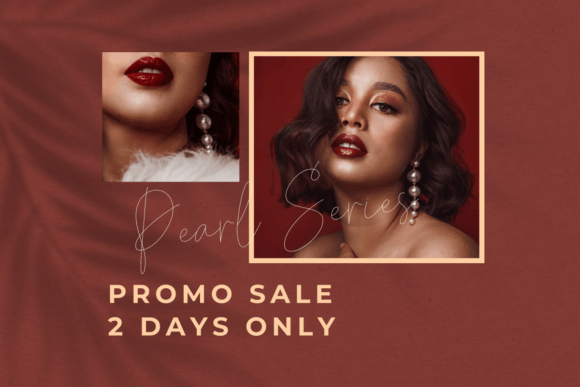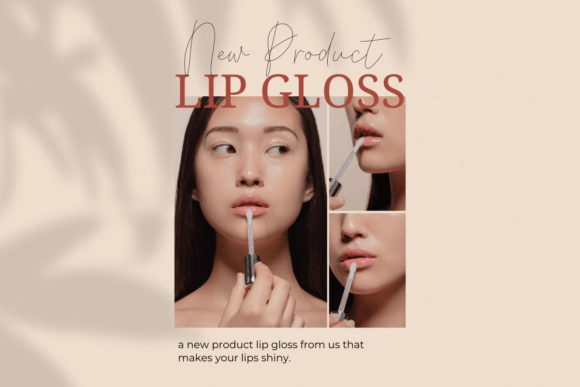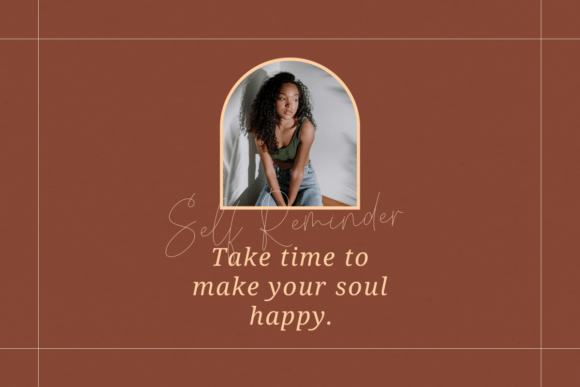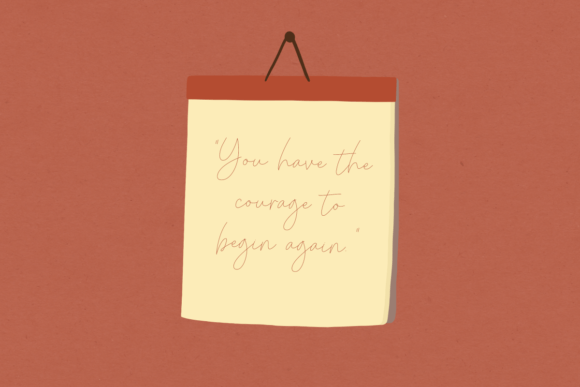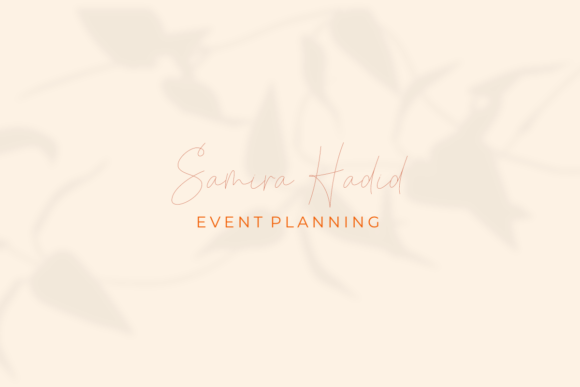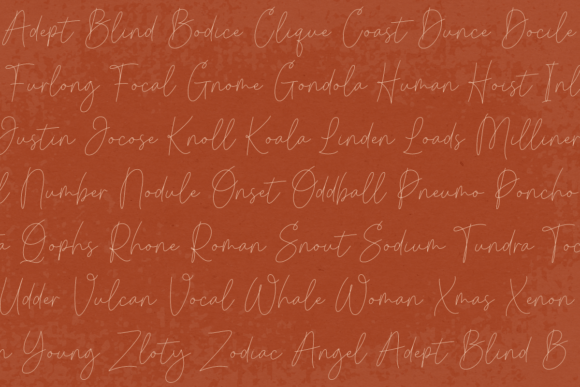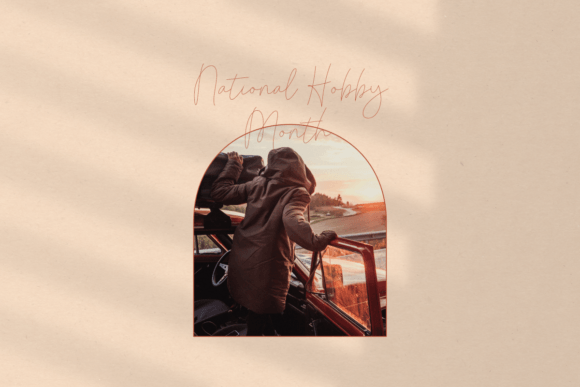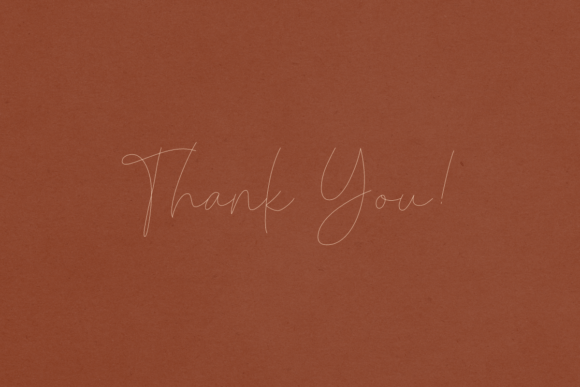
Absolutely Silent Font
About Absolutely Silent Font
Absolutely Silent is an uncomplicated and single-line handwritten font characterized by its refined touch. Its simplicity exudes a timeless elegance that captures attention and admiration. This font’s unique qualities make it easy to fall in love with, and its versatility allows you to create spectacular designs that leave a lasting impression.
The beauty of Absolutely Silent lies in its simplicity. The single-line construction imparts a sense of clarity and sophistication to the characters, making it suitable for a wide range of design projects. This font’s refined touch adds a touch of grace to each stroke, creating an overall aesthetic that is both distinctive and charming.
Embrace the distinct and timeless style of Absolutely Silent to elevate your creative endeavors. Whether you’re working on invitations, signage, branding, or any other design project, this font provides a canvas for crafting visually stunning and memorable pieces. Its versatility shines through, allowing you to adapt Absolutely Silent to various themes and aesthetics seamlessly.
The refined touch of Absolutely Silent makes it a standout choice for those who appreciate simplicity with a touch of sophistication. It effortlessly conveys a sense of understated beauty, making it suitable for both formal and informal contexts. This font is more than just a typographic choice; it’s a design element that adds a layer of elegance and timelessness to your creations.
As you explore the possibilities of Absolutely Silent, you’ll discover its ability to enhance the visual appeal of your designs. Whether you’re designing invitations for a special event or creating a logo that demands a subtle yet impactful touch, Absolutely Silent provides the perfect balance of simplicity and sophistication.
In conclusion, Absolutely Silent is not just a font; it’s an invitation to create. Its simple, single-line construction, refined touch, and timeless style make it a valuable asset for designers seeking to make a statement with their projects. Fall in love with the sheer beauty of Absolutely Silent and let it be the muse for your next spectacular design.